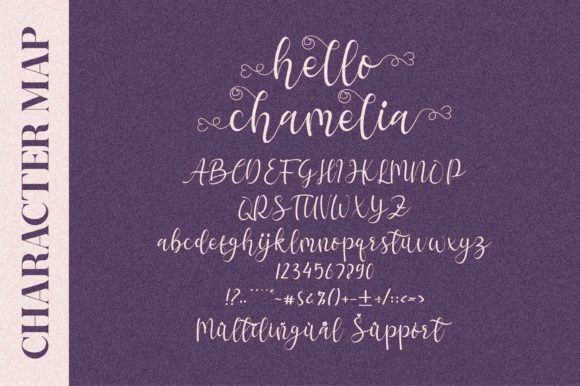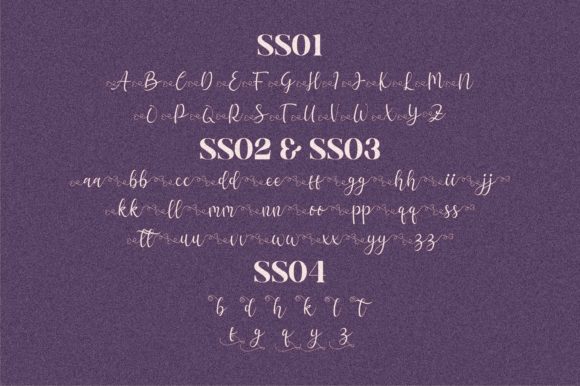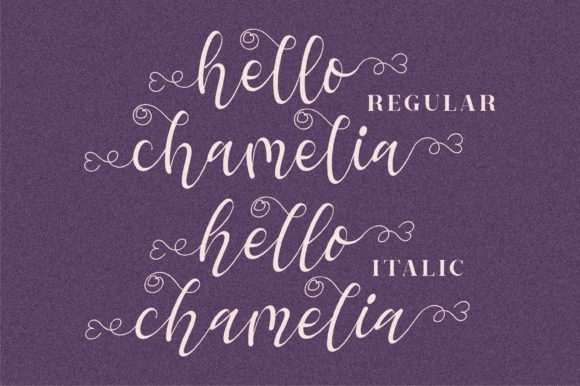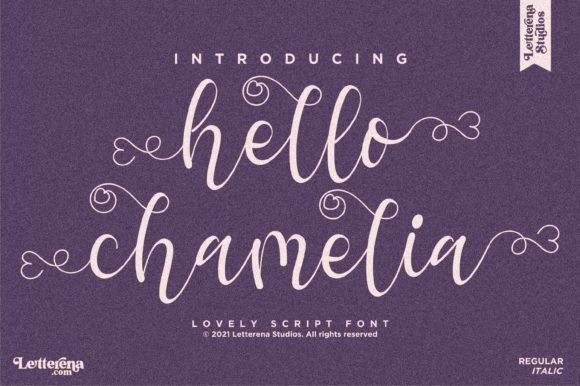
Introduction to Hello Chamelia Font
Hello Chamelia is a lovely handwritten font.
Use it for any design projects that require a charming appearance This font is PUA encoded which means you can access all of the glyphs and swashes with ease.